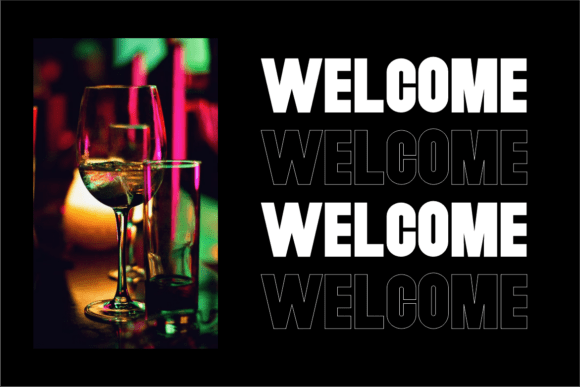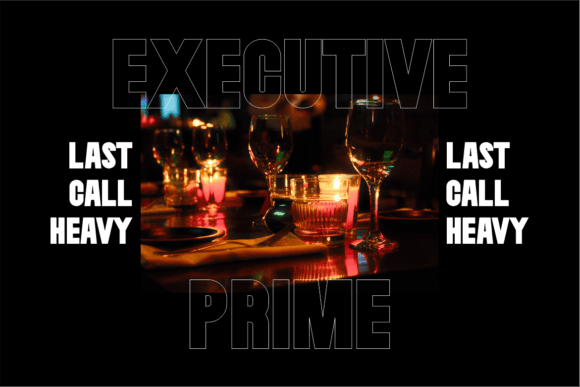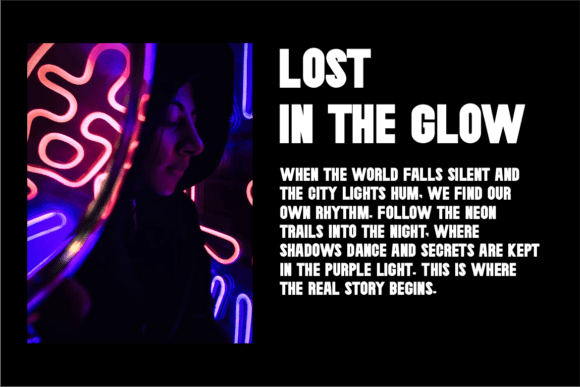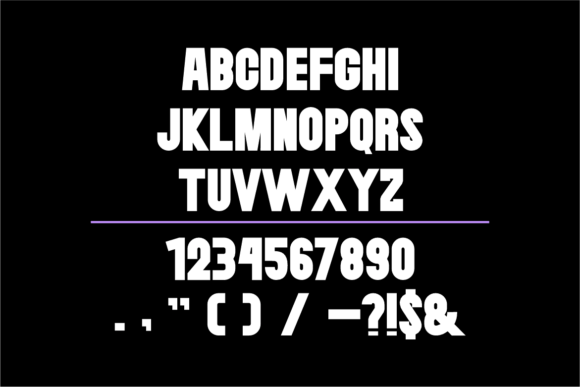
Introducing Granite Font: The Epitome of Strength and Modern Urban Style
GRANITE is a display font that exudes an air of aggressively strong and solid presence, designed to make a maximum impact on any design project. This font embodies a sense of weight, permanence, and contemporary urban style, making it a perfect choice for designers and crafters looking to add a touch of modernity and ruggedness to their work.
The Design Philosophy Behind Granite Font
The Granite font is built on a design philosophy that emphasizes strength, resilience, and modern urban aesthetics. Its bold and rugged appearance is inspired by the natural texture of granite stone, which is known for its durability and permanence. The font’s designer aimed to capture the essence of this robust material and translate it into a typographic form that commands attention and exudes confidence.
Key Features of Granite Font
• Aggressively Strong and Solid: The Granite font boasts a robust and sturdy appearance that makes it perfect for headlines, titles, and any design element that requires a strong visual impact.
• Maximum Impact: The font’s bold and condensed design ensures that your message gets across with maximum impact, making it ideal for posters, billboards, and digital displays.
• Contemporary Urban Style: Granite font’s modern and sleek design makes it a perfect fit for urban-themed designs, such as fashion, technology, and lifestyle brands.
• Versatility: Despite its bold appearance, the Granite font is surprisingly versatile and can be used in various design contexts, from print to digital media.
Use Cases for Granite Font
The Granite font is an excellent choice for a wide range of design projects, including:
• Posters and Flyers: The font’s bold and attention-grabbing design makes it perfect for creating eye-catching posters and flyers.
• Branding and Logo Design: Granite font’s strong and modern appearance makes it an excellent choice for logos and branding materials that require a bold and contemporary look.
• Digital Displays: The font’s clear and legible design ensures that it remains effective even at smaller sizes, making it suitable for digital displays, such as mobile apps and websites.
• Packaging Design: Granite font’s rugged and urban feel makes it a great choice for packaging design, particularly for products that require a bold and modern aesthetic.
Tips for Using Granite Font Effectively
To get the most out of the Granite font, consider the following tips:
• Use it sparingly: Due to its bold and attention-grabbing design, it’s best to use the Granite font sparingly to avoid overwhelming the viewer.
• Pair it with contrasting fonts: Combine the Granite font with contrasting fonts to create visual interest and add depth to your design.
• Experiment with colors: The Granite font looks great in a variety of colors, so don’t be afraid to experiment and find the perfect hue to match your brand or design.
In conclusion, the Granite font is a powerful and versatile design tool that can add a touch of modern urban style to any design project. Its aggressively strong and solid appearance makes it perfect for designers and crafters looking to create bold and attention-grabbing designs. With its wide range of use cases and tips for effective use, the Granite font is sure to become a staple in any designer’s toolkit.